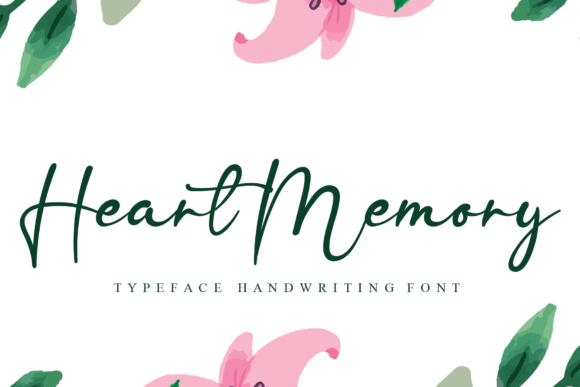
About Heart Memory Font
Heart Memory is a friendly and casual handwritten font. Use it to make your ideas even more realistic and create spectacular designs!